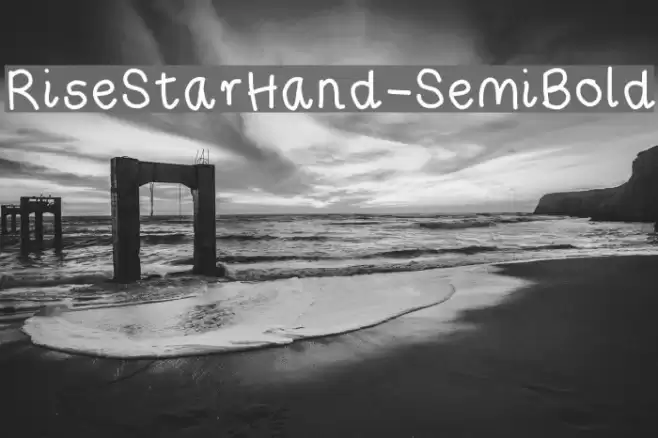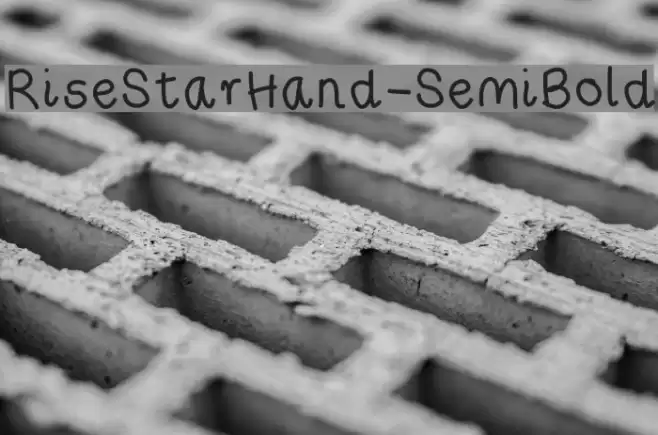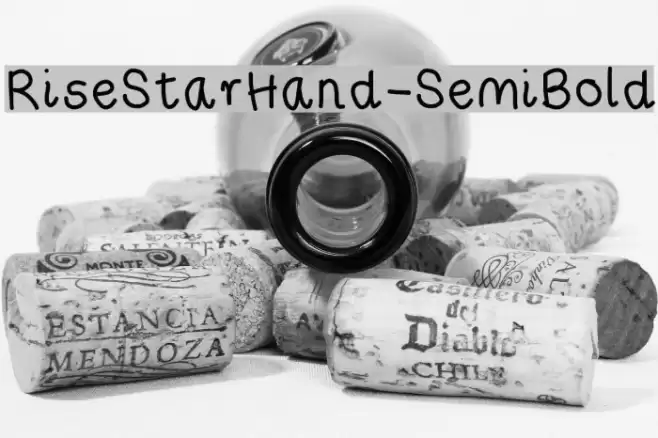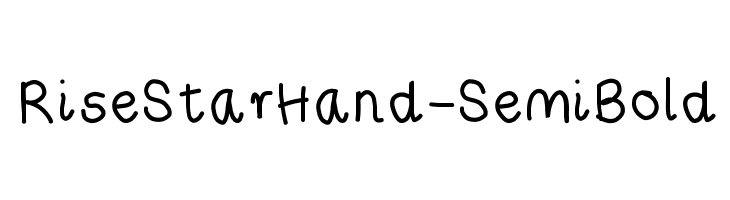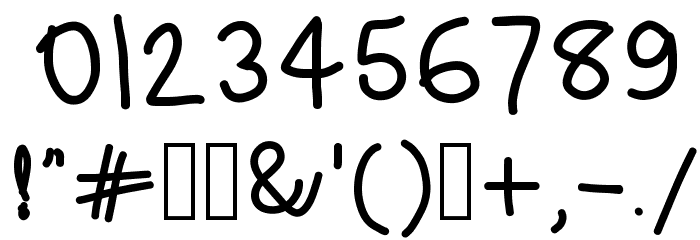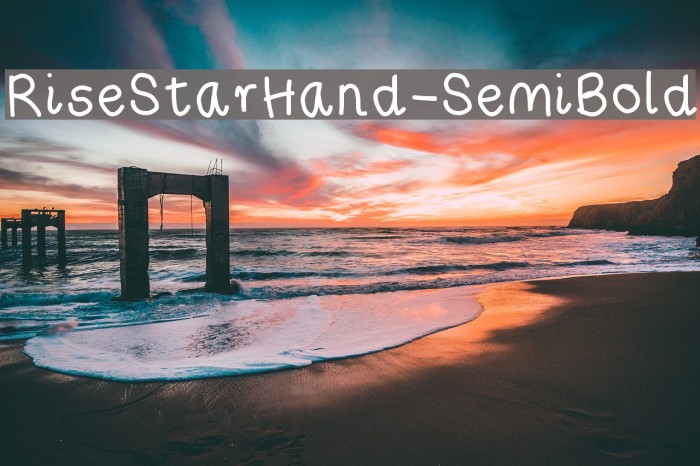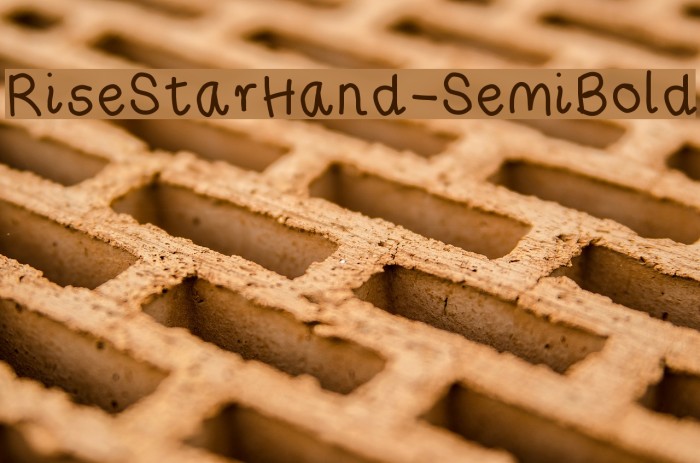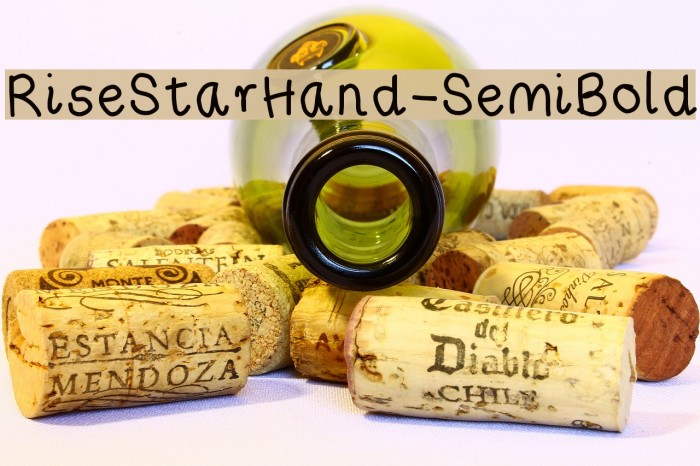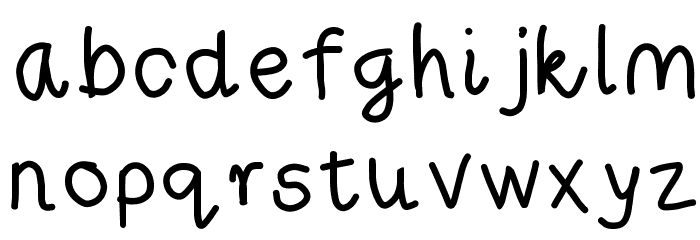
RiseStarHand-SemiBold Font
RiseStarHand-SemiBold Description
This font features a playful and casual handwritten style, characterized by its smooth curves and slightly irregular letterforms that mimic natural handwriting. The uppercase letters are bold and rounded, while the lowercase letters maintain a consistent flow with a touch of whimsy. Numbers and special characters are designed with the same playful aesthetic, ensuring a cohesive look across all text elements. The font's semi-bold weight provides a strong presence without overwhelming the reader, making it suitable for both informal and creative applications.
A playful, semi-bold handwritten font with smooth curves and a casual style from Uncategorized fonts.
- Proposed Projects: Ideal for greeting cards, children's books, casual branding, and social media graphics.
- Overall Style: Casual, Playful
- Use Case: Headlines, Informal Text, Creative Projects